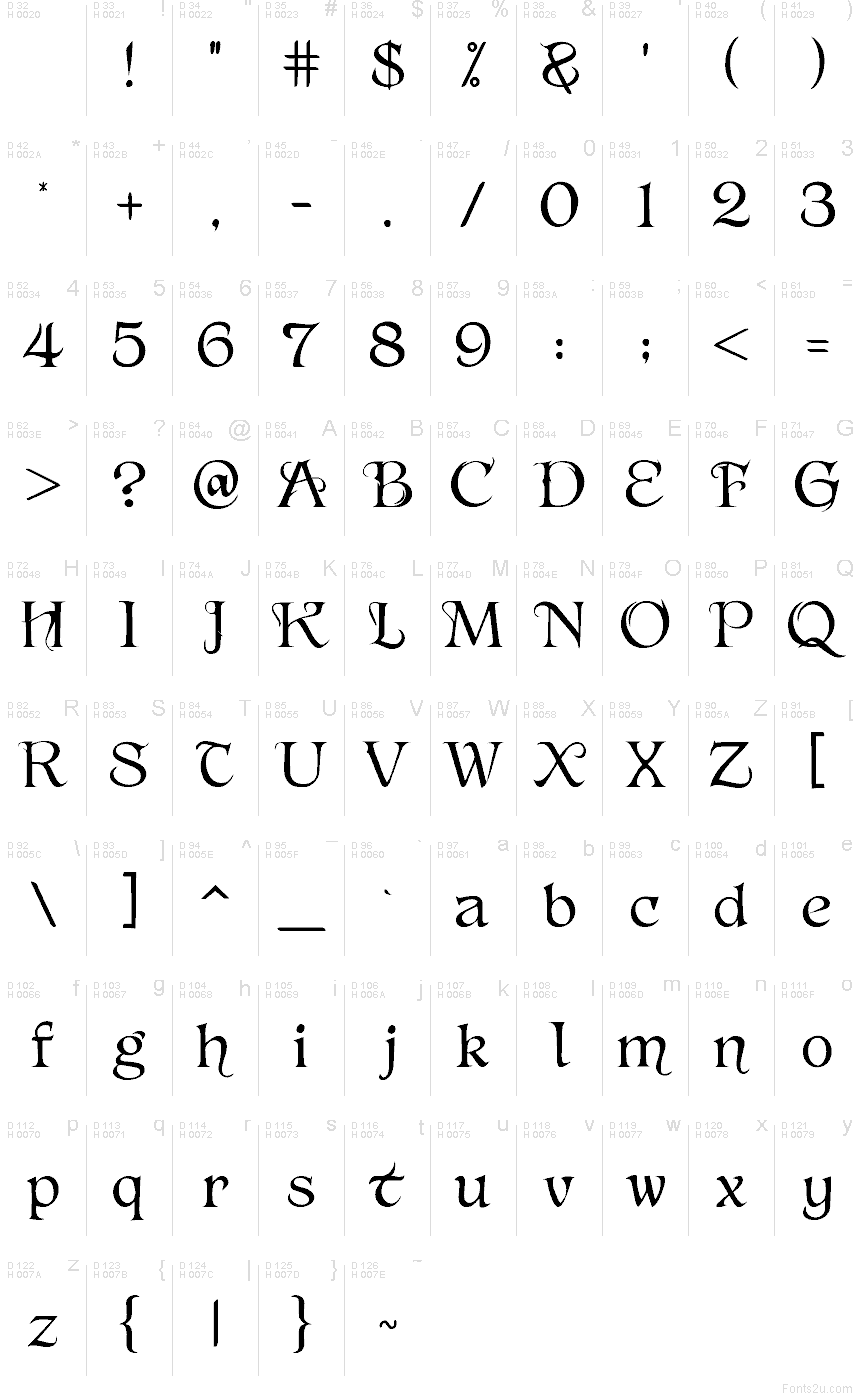
Citadel of Blackrose
Citadel of Blackrose font by BlackFridayFont FMF is a free gothic celtic typeface that feels like it was inked in the margins of an ancient spellbook. Its letters twist with graceful, thorn-like curves, mixing sharp, ceremonial edges with softer, calligraphic strokes. The rhythm is dense but not cluttered, giving titles a moody, story-rich presence that feels both medieval and slightly arcane.
Using Citadel of Blackrose, you can instantly set the tone for fantasy book covers, dark RPG interfaces, band logos, gothic posters, themed event invitations, and occult-inspired branding. This free font shines when used large as a primary title, paired with a clean, understated sans serif for body text to keep everything readable while preserving the drama.